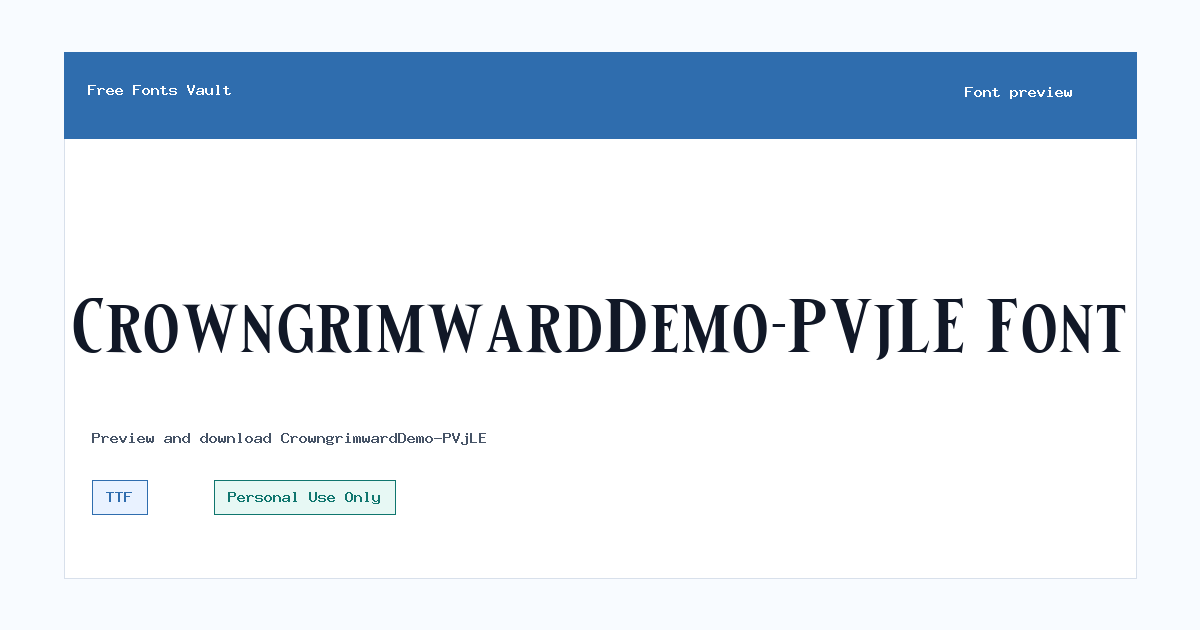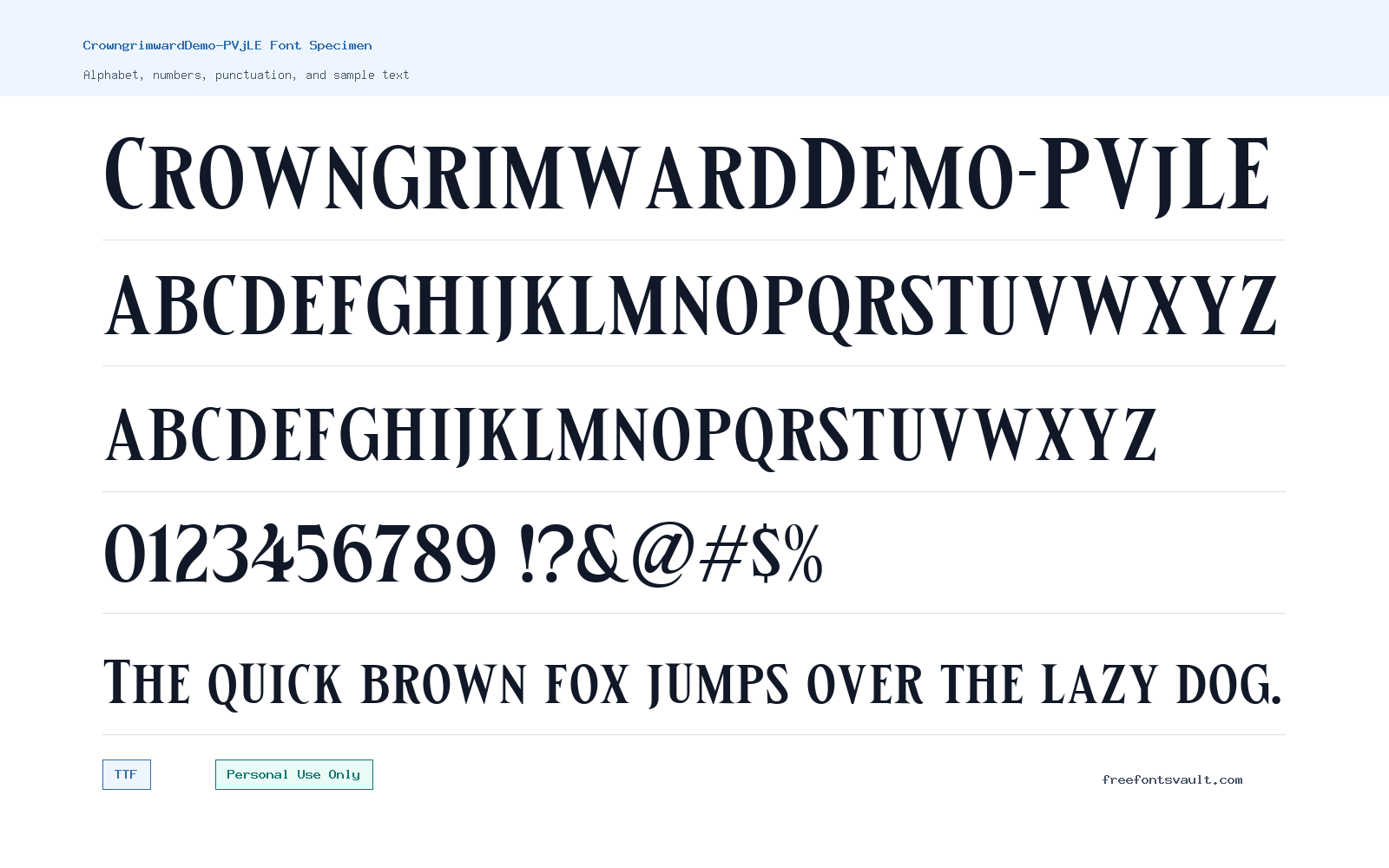
CrowngrimwardDemo-PVjLE
CrowngrimwardDemo-PVjLE is a demo display font from Letterhend Studio with a personal-use license. It is best approached as a title or branding-style typeface rather than a long-reading text font.
About CrowngrimwardDemo-PVjLE
CrowngrimwardDemo-PVjLE appears to be connected with the Crown Grimward Serif Font name in its license text, so it should be treated as a decorative serif-style display font unless the designer’s full release page says otherwise. The available font file is a regular TTF style with normal weight, which makes it easy to install and test in common design apps. Because the title includes “Demo,” visitors should expect a limited trial-style release and should not assume it contains every weight, character, or commercial permission from the full type family.
This font is most useful when you need a strong headline, a logo draft, a poster title, a book-cover concept, a label, or a social graphic where the lettering itself carries the mood. Test it with short words first, then try mixed-case phrases, numbers, and punctuation in the preview. Decorative fonts can look excellent at large sizes but become harder to read in body text, menus, or dense paragraphs. If you are designing for a client, product, brand identity, merchandise, ads, packaging, or any paid project, check the commercial license from Letterhend Studio before using it beyond personal testing.
- Demo personal-use release suited to large display settings such as titles, logo concepts, posters, and visual mockups.
- Single available style, so layouts should be built around one main display voice rather than a full multi-weight system.
- Decorative serif-style naming suggests it is better for expressive headings than for long-form reading.
- Logo concepts and branding mockups where the final license will be checked before client or commercial use.
- Poster titles, event graphics, cover art, and display layouts that use short, high-impact text.
- Web design mockups, hero headings, landing-page concepts, and mood boards where the font is used as a visual direction.
Use CrowngrimwardDemo-PVjLE at large sizes and keep the text short. For logos, test the wordmark in black and white first, then check spacing between letters manually. For posters and web mockups, pair it with a plain sans serif or a quiet text serif so the decorative title does not compete with body copy. Avoid using it for paragraphs, small navigation labels, accessibility-critical text, or any setting where quick reading matters more than style. Since only a regular TTF file is listed, confirm character support before committing to names, multilingual text, numbers, or special punctuation.
What kind of projects is this font good for?
It is best for short display text such as logo drafts, poster titles, cover concepts, labels, web hero headings, and personal design experiments.
Is this a good font for body text?
It is not the best choice for long paragraphs. Use it for headings or display text, then pair it with a simpler font for readable body copy.